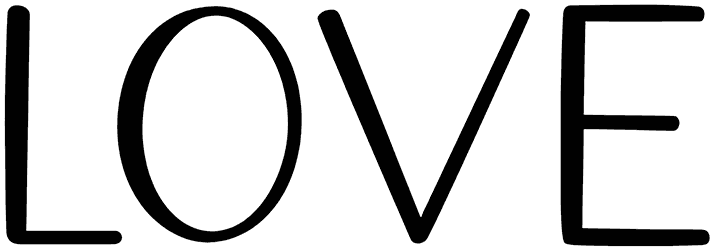
Love Font
To adorn your words humbly and elegantly, we offer you to test a minimalist font like this one. The Characters of Love font has a simple manuscript form that would be a great option for many designs. This modern love font doesn’t support lowercase letters but it can give a nice face to the words of a lifestyle Instagram post cover, a fall fashion flyer, or so forth.